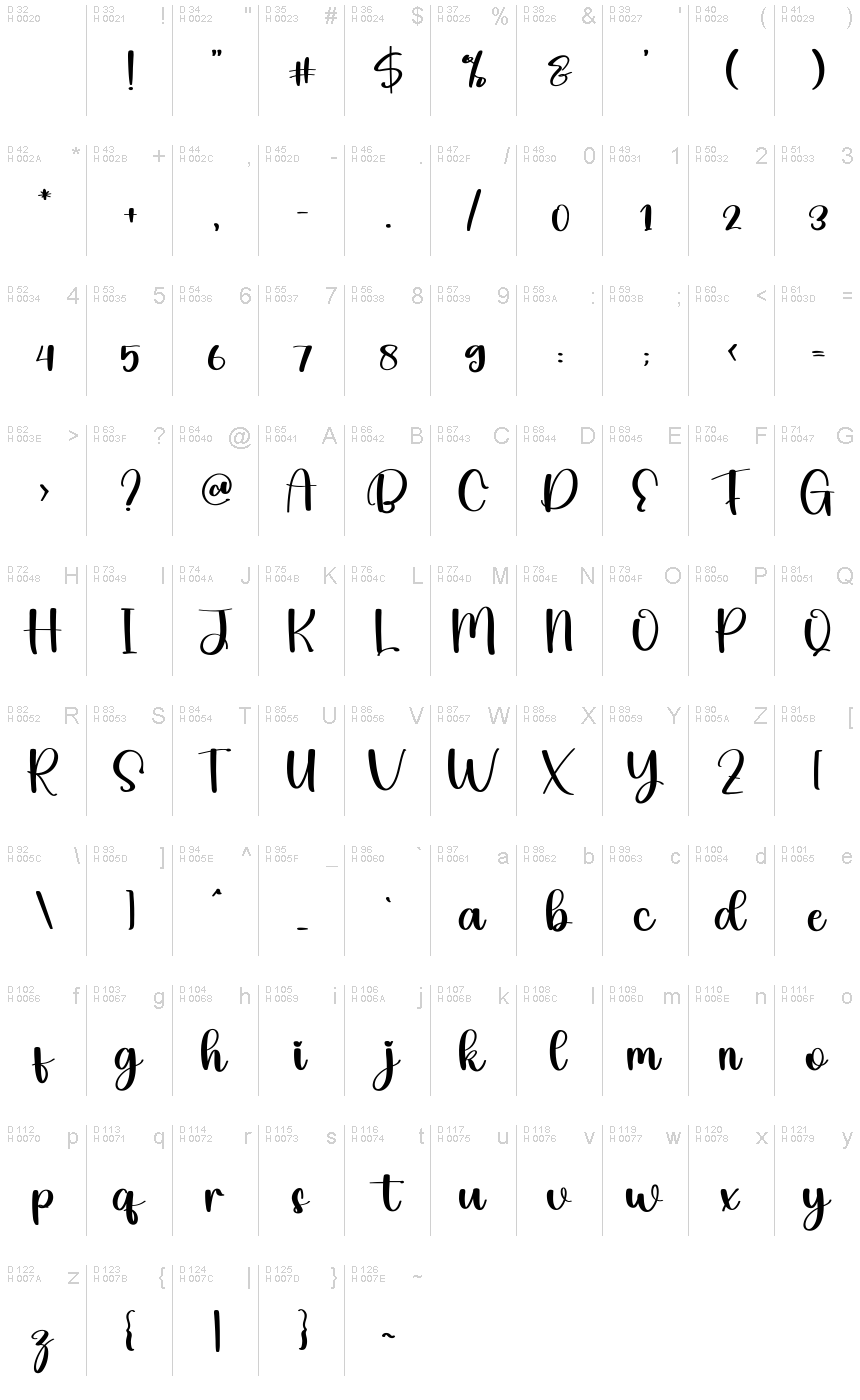
Rain Night
Rain Night, a creation of Inermedia Studio, embodies a unique blend of elegance and whimsy with its curly handwritten style. The semi-light weight of the font gives it a delicate yet assertive presence, perfect for conveying heartfelt messages and artistic flair. Each character in Rain Night dances with a gentle fluidity reminiscent of an ink pen gracefully sweeping across a page on a contemplative evening.
This font's aesthetic appeal lies in its capacity to inject personality and warmth into any creative project, making it ideal for personalized invitations, branding initiatives, or any design that calls for a touch of human touch. Its versatility ensures that Rain Night will enhance the visual storytelling of diverse creative endeavors with its stylish charm and intimate feel.